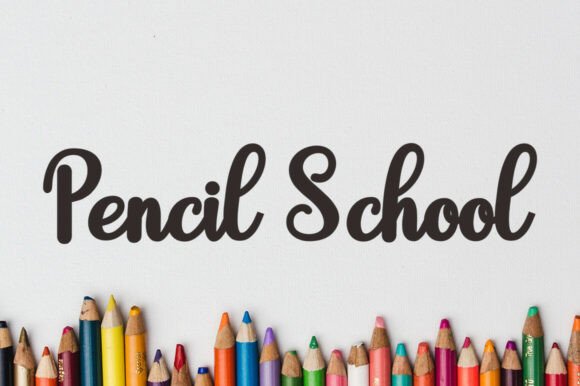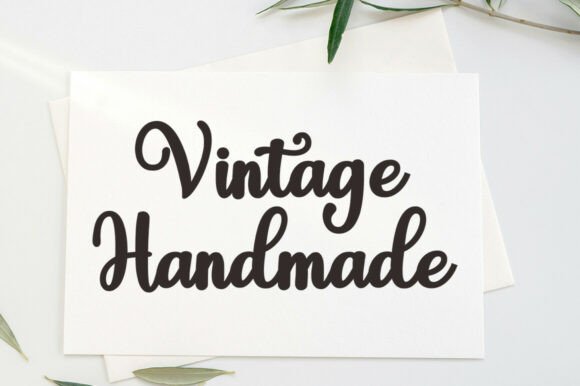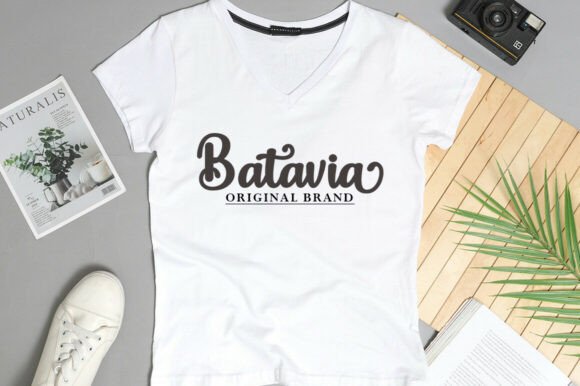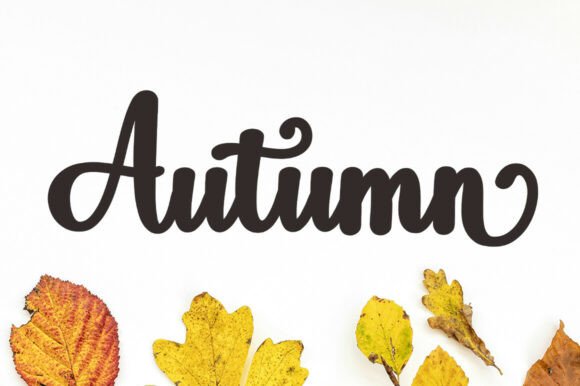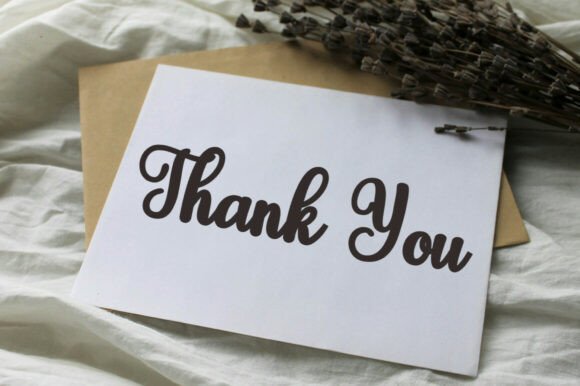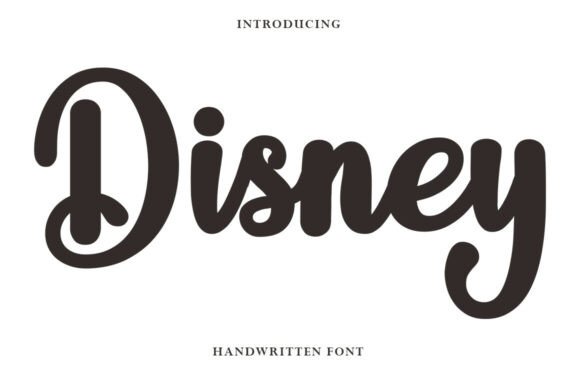
Introducing Disney Font: The Ultimate Choice for Creative Designers and Crafters
Are you a designer or crafter looking for a unique and cool font to elevate your creative projects? Look no further than the Disney Font! This delicate handwritten font is carefully crafted to add a touch of magic to your designs, making it perfect for a wide range of applications, from letters and invitations to food products, titles, and more.
What is Disney Font?
Disney Font is a beautiful, hand-written typeface that is reminiscent of the classic Disney style. Its delicate and elegant design makes it perfect for creating sophisticated and eye-catching designs that are sure to stand out. Whether you’re a professional designer or a crafty DIY enthusiast, Disney Font is a versatile and easy-to-use font that can help you add a touch of whimsy and charm to your projects.
Key Features of Disney Font
- Handwritten Design: Disney Font is a carefully crafted handwritten font that is designed to look like it was written with a pen or pencil. This gives it a personal and unique touch that is perfect for creating handmade-style designs.
- Delicate and Elegant: The font features delicate and elegant lines that are perfect for creating sophisticated and eye-catching designs.
- Versatile: Disney Font can be used for a wide range of applications, including letters, invitations, food products, titles, and more.
Uses for Disney Font
Disney Font is a versatile font that can be used for a wide range of creative projects. Here are some ideas to get you started:
- Invitations and Stationery: Use Disney Font to create beautiful and elegant invitations, greeting cards, and stationery.
- Food Products: Add a touch of magic to your food products, such as labels, packaging, and menus, with Disney Font.
- Titles and Headings: Use Disney Font to create eye-catching titles and headings for your blog posts, articles, and social media graphics.
- DIY Crafts: Disney Font is perfect for DIY crafters who want to add a personal touch to their projects, such as scrapbooking, journaling, and card making.
Tips for Using Disney Font
Here are some tips for using Disney Font in your creative projects:
- Pair it with Other Fonts: Disney Font looks great when paired with other fonts, such as bold sans-serif fonts or elegant script fonts.
- Experiment with Colors: Disney Font looks great in a variety of colors, from bright and bold to soft and pastel.
- Add Decorations: Consider adding decorations, such as flowers or borders, to enhance your designs and make them more eye-catching.